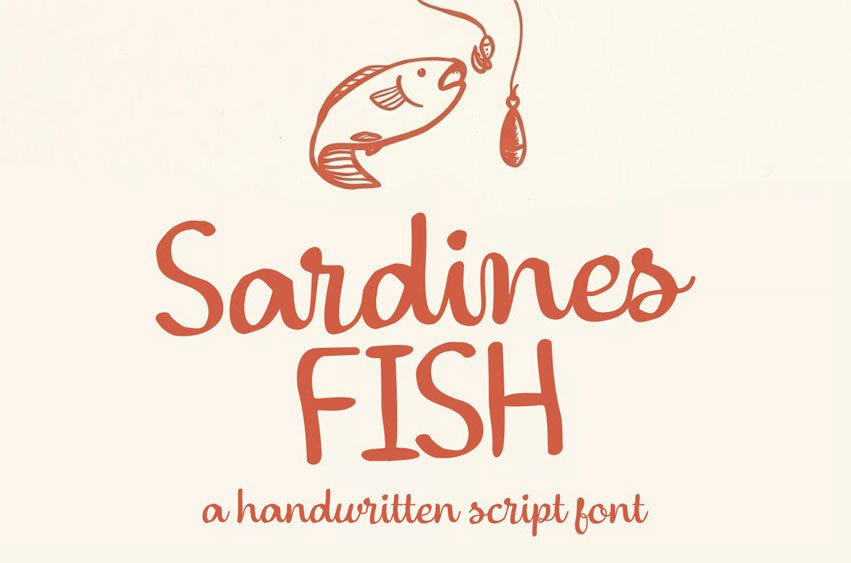
Sardines Fish Font is a charming handwritten script font designed to bring a whimsical, organic energy to your creative work. Balancing casual pen strokes with a playful layout, this font captures the raw beauty of natural handwriting while maintaining excellent legibility and a professional finish.
With its friendly personality and fluid motion, Sardines Fish is highly versatile. It works wonderfully for playful branding, children’s book illustrations, food and beverage packaging, greeting cards, and casual lifestyle content. If your design requires an authentic, hand-crafted touch that instantly connects with an audience, this font is the perfect addition to your toolkit.
Ideal For:
- Food & Beverage Branding: Perfect for organic markets, seafood restaurants, and cafes.
- Packaging Design: Creative labels for artisanal snacks, juices, and handmade goods.
- Kids & Whimsical Themes: Nursery prints, playful posters, and school project headers.
- Social Media & Crafts: Casual Instagram quotes, digital journaling, and DIY merch.